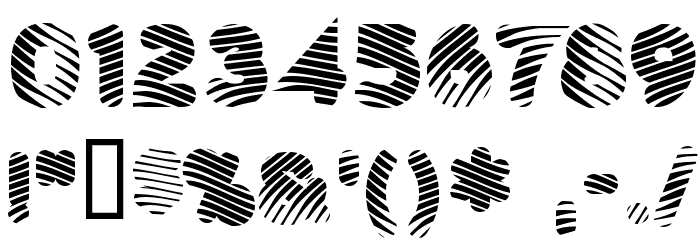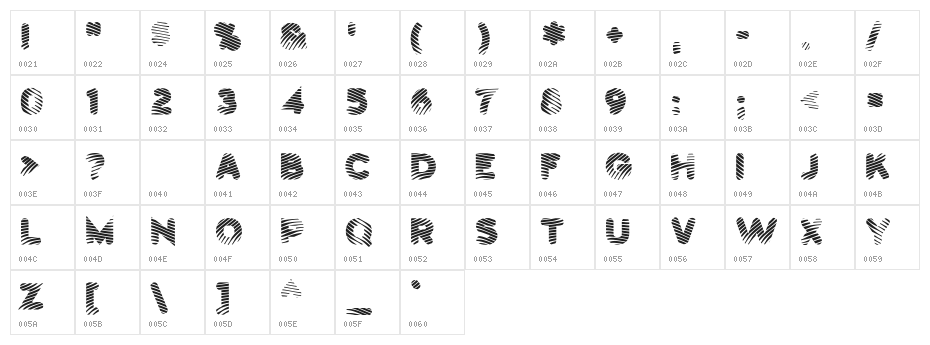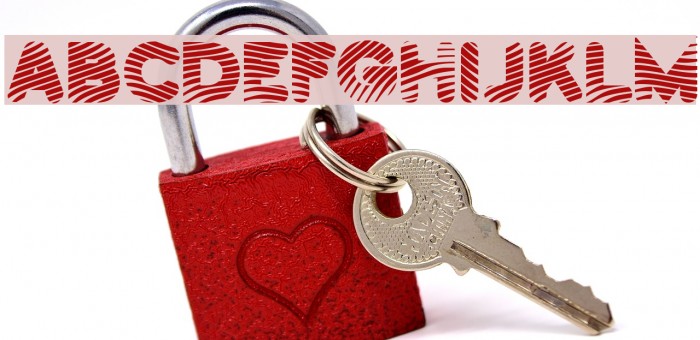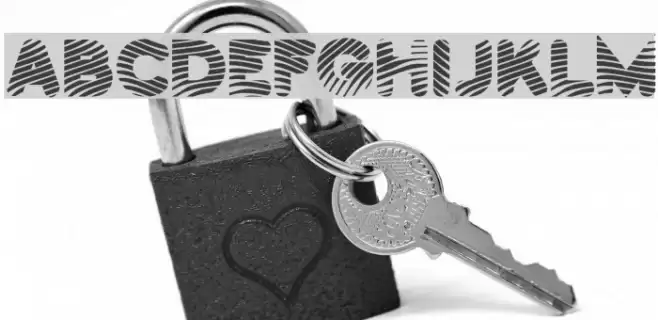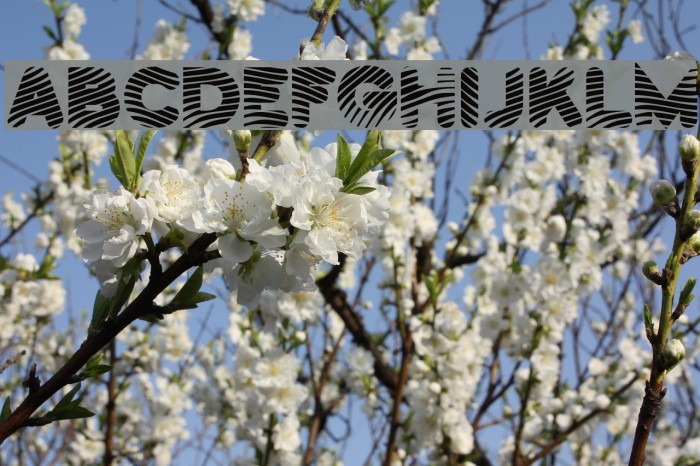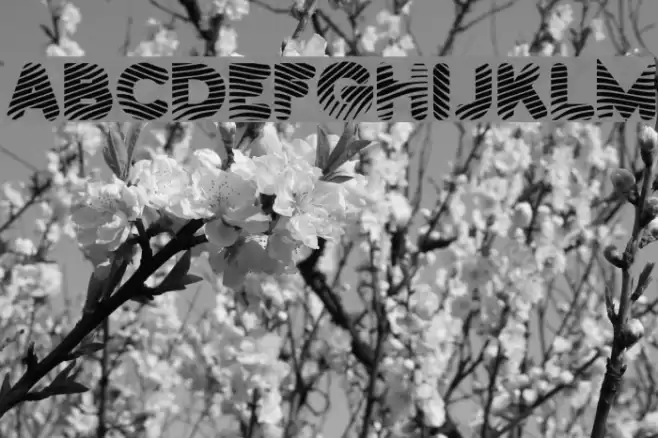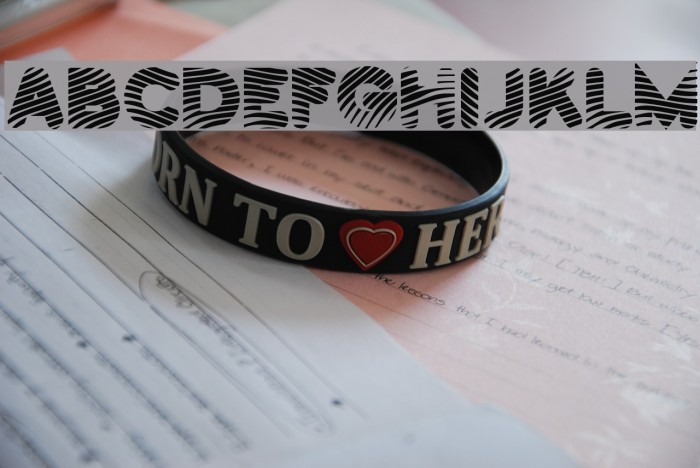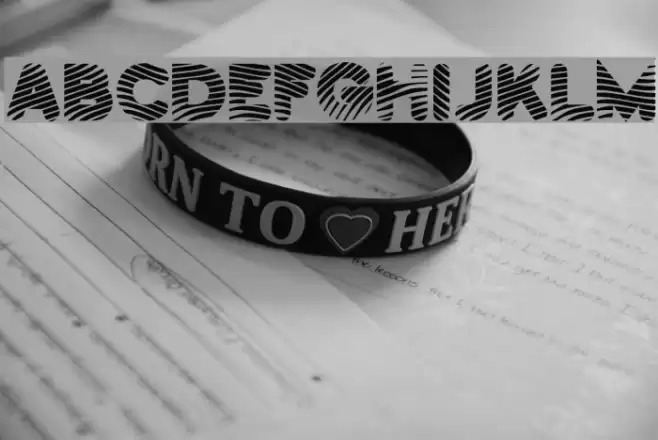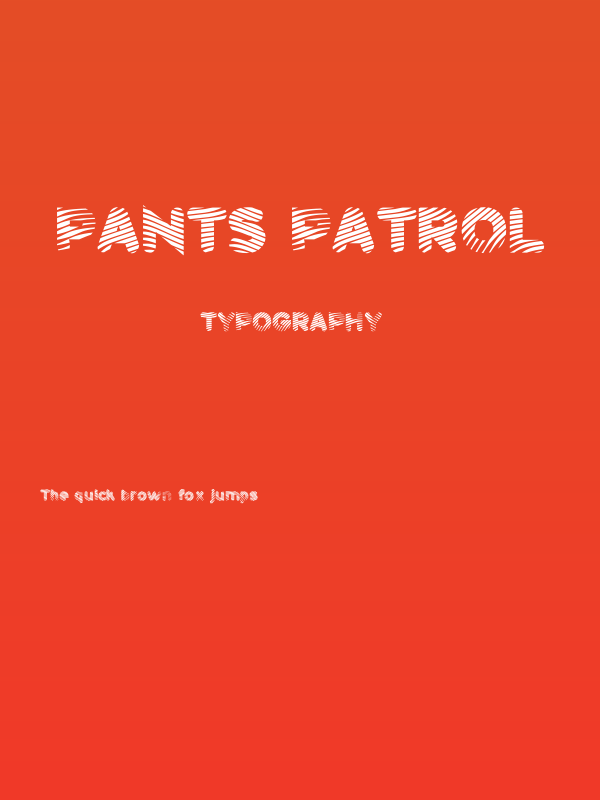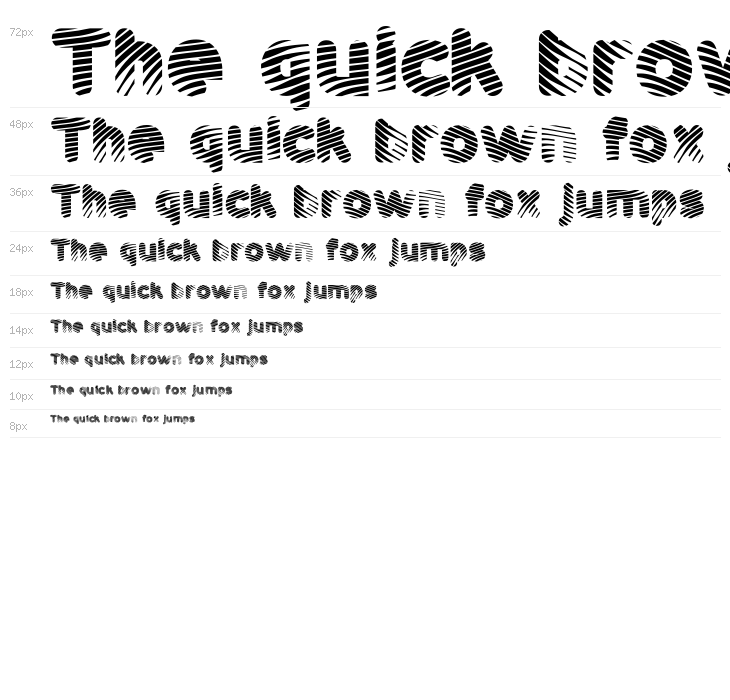
Pants Patrol Font
Pants Patrol Description
This font features a bold and playful design with a unique striped pattern running through each character. The letters are rounded and have a dynamic, energetic feel, making them stand out with a sense of movement. The uppercase and lowercase letters maintain a consistent style, with the stripes adding a textured effect that gives the font a modern and artistic look. The numbers and special characters follow the same design, ensuring uniformity across all elements. This font is ideal for projects that require a bold statement and a touch of creativity.
| Proposed Projects | Ideal for branding, posters, and creative advertising campaigns. |